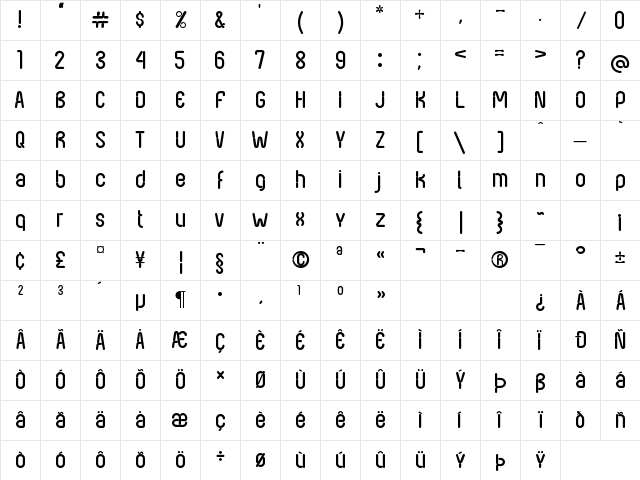
Nexus FPS Regular
Nexus FPS Family
Design Context for Nexus FPS
Nexus FPS is a composed and adaptable typeface that performs quietly and consistently across a wide range of design contexts.